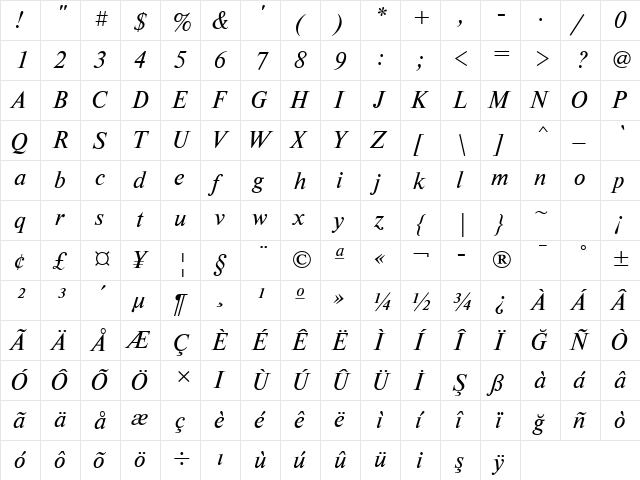
NewtonTTT Italic
Design Context for NewtonTTT Typeface
NewtonTTT is a composed and adaptable typeface that performs quietly and consistently across a wide range of design contexts. The slanted form adds forward momentum and visual energy.
Pro Tip: Try NewtonTTT for annotation and caption copy alongside an upright companion — the contrast in angle creates a dynamic but ordered typographic system.